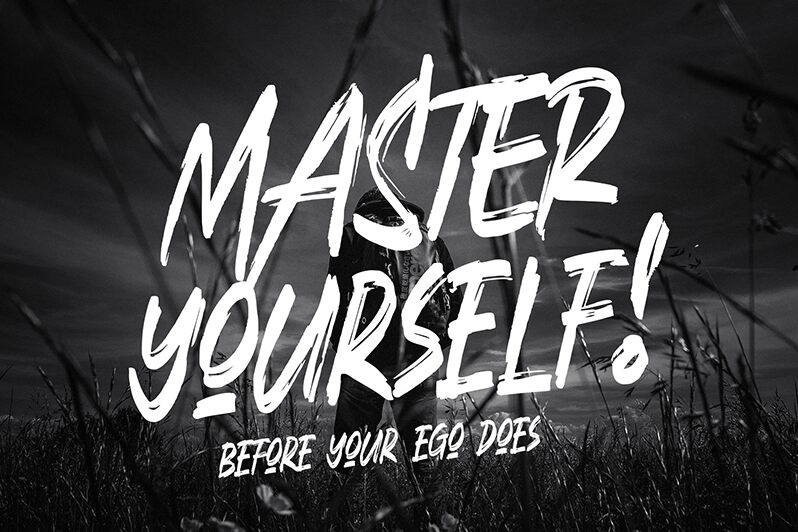
Vankours, the dry brush font designed by Arterfak Project, is the perfect addition to any project looking for a touch of edginess and creativity. With its condensed width, this semi-bold font commands attention while still maintaining legibility. Its unique style makes it suitable for a variety of projects such as social media graphics, branding materials, and even product packaging. Whether you're looking to add some flair to your next design project or create eye-catching headlines, Vankours is the ideal choice for those seeking a bold and unforgettable statement.
Vankours